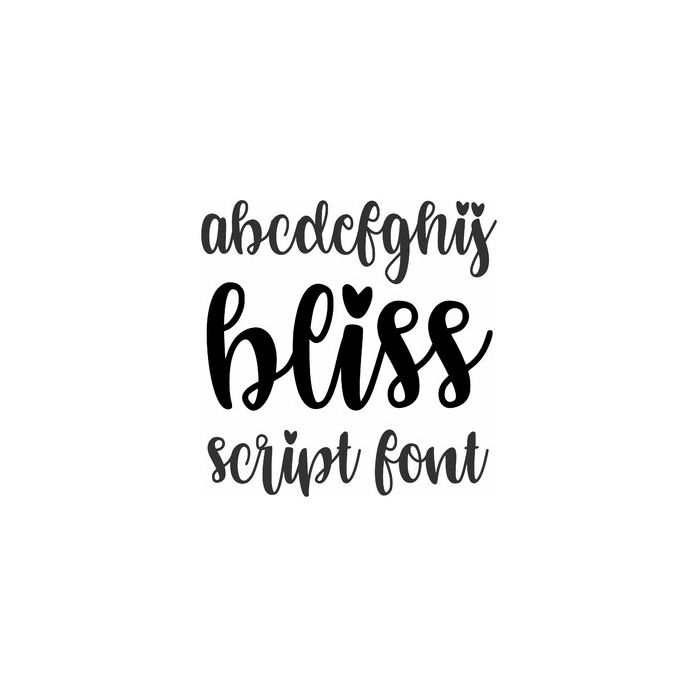
Bliss is a pretty handwriting brush script font, cute for valentine cards, birthday gifts, signs, personalization and monogram projects, stickers, labels, and crafts. Hearts for lowercase i's and j's. Includes alphabet, numbers, and punctuation.